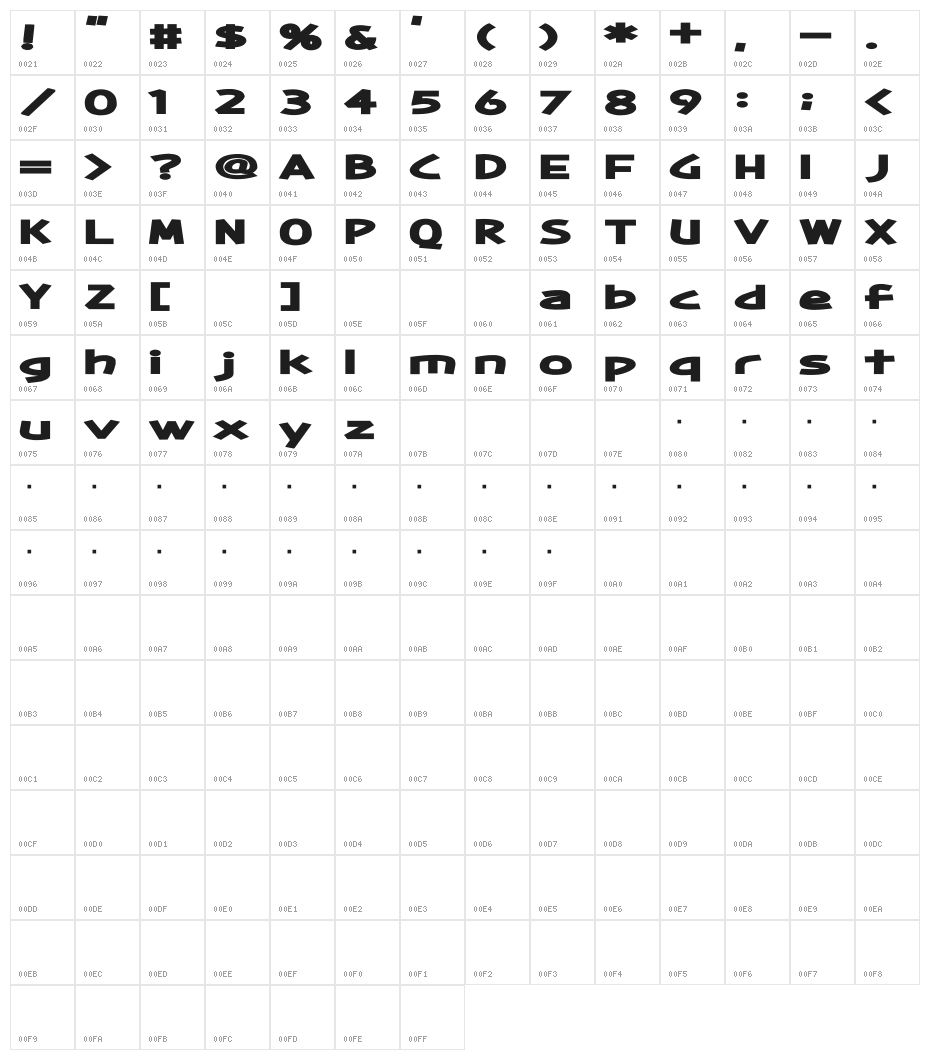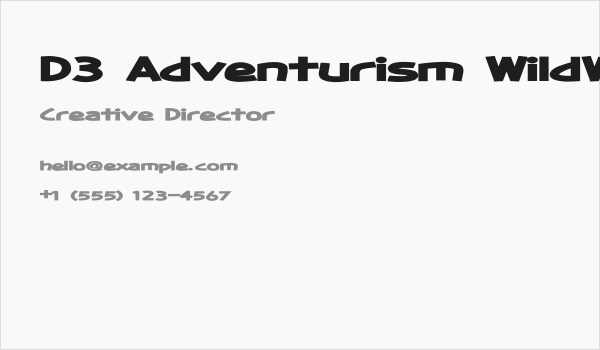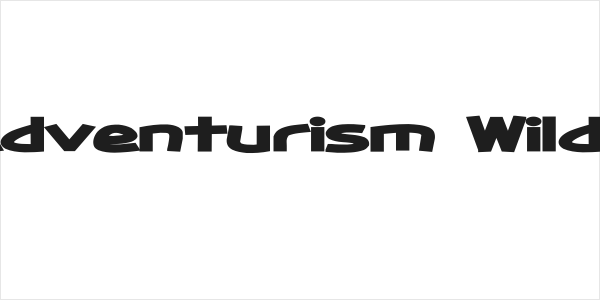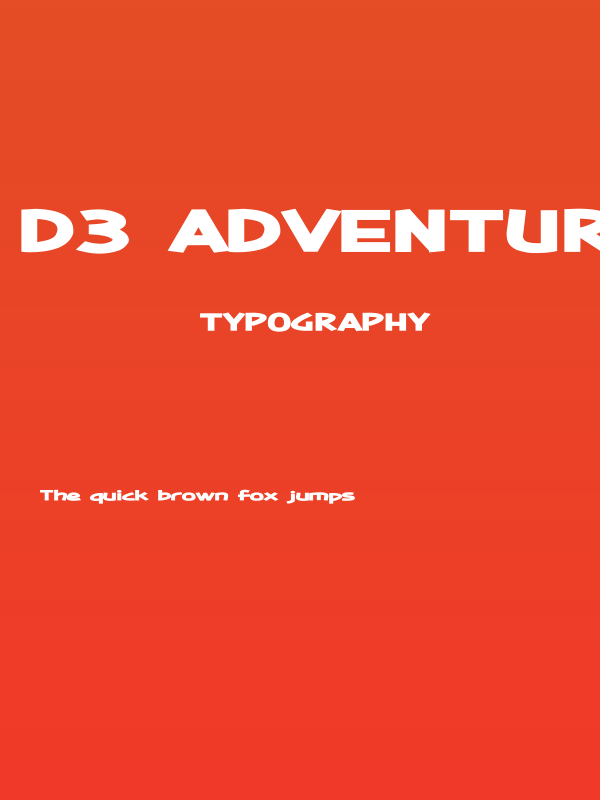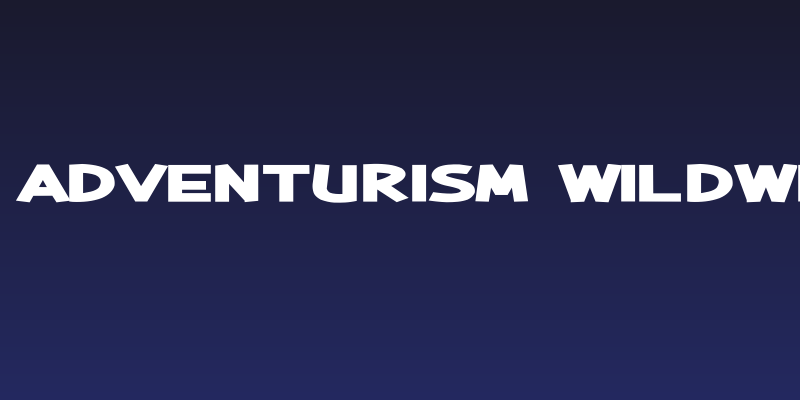
D3 Adventurism WildWide Font
D3 Adventurism WildWide Description
This font features bold, angular characters with a distinct geometric flair. The uppercase letters are particularly striking, with sharp edges and a wide stance that conveys strength and modernity. The lowercase letters maintain this boldness while introducing slightly softer curves, adding a touch of playfulness. Numbers and special characters are equally bold and consistent with the overall style, making them stand out. The font's unique design is both eye-catching and versatile, suitable for a variety of creative projects.
| Proposed Projects | Ideal for branding, posters, headlines, and any project requiring a strong, modern aesthetic. |